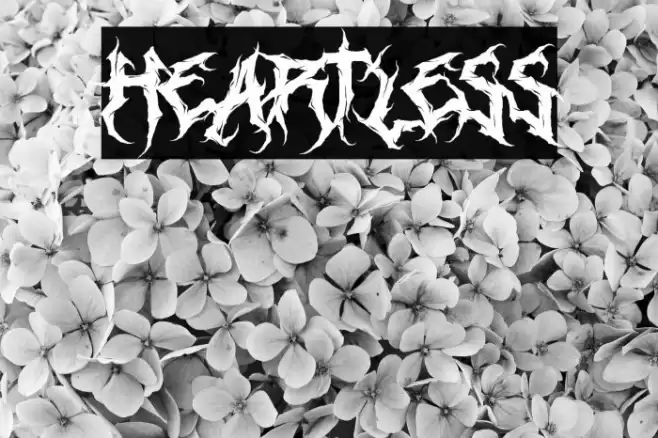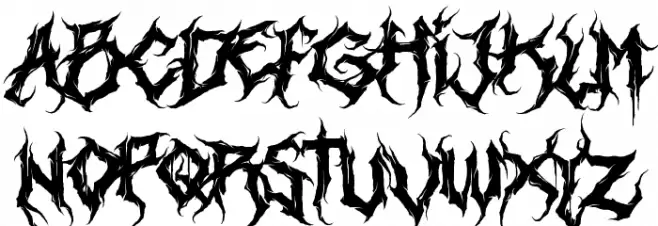
Heartless Font
Heartless Description
This font features an intense, jagged design that evokes a sense of edginess and rebellion. The characters are sharply pointed and irregular, resembling thorny vines or flames, which gives them a dynamic and aggressive appearance. The uppercase and lowercase letters maintain a consistent style, with exaggerated serifs and angular strokes that create a visually striking effect. The numbers and special characters follow the same aesthetic, ensuring a cohesive look across all elements. This font is ideal for projects that require a bold, eye-catching statement.
A jagged, edgy font with sharp, thorn-like characters from Uncategorized fonts.
- Proposed Projects: Album covers, tattoo designs, extreme sports branding, horror movie posters.
- Character Spacing: Tight